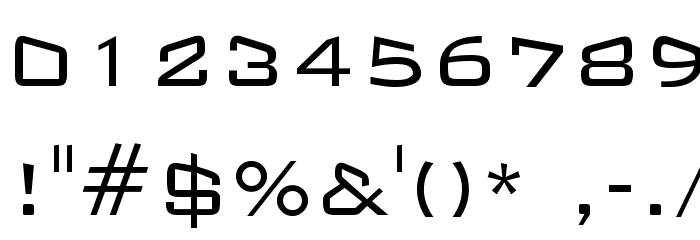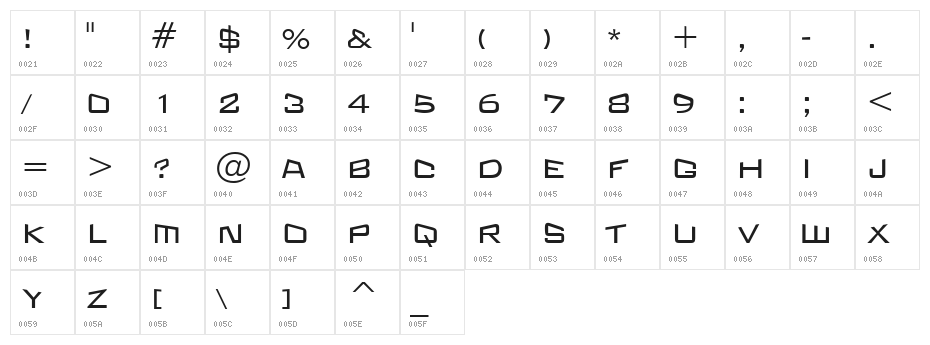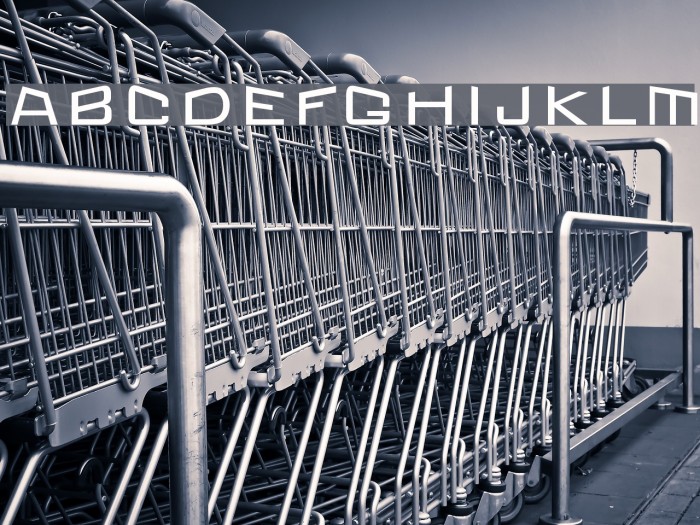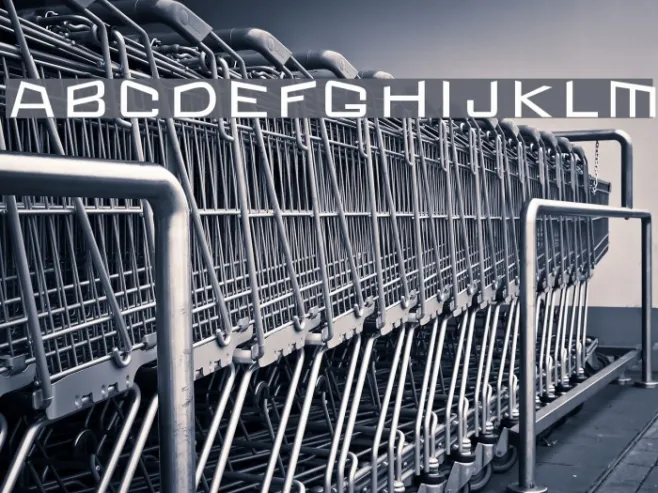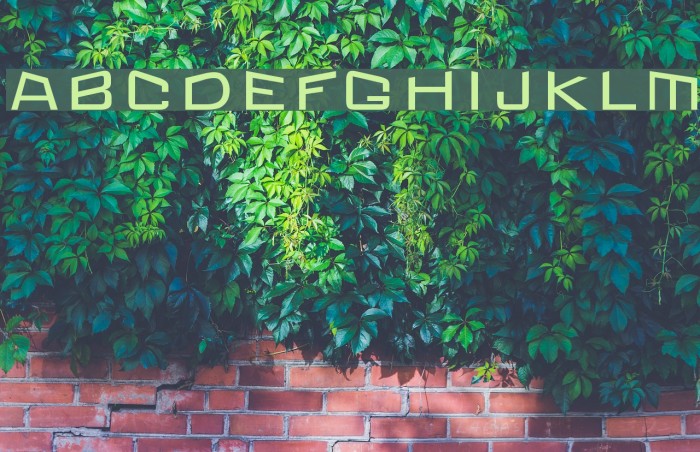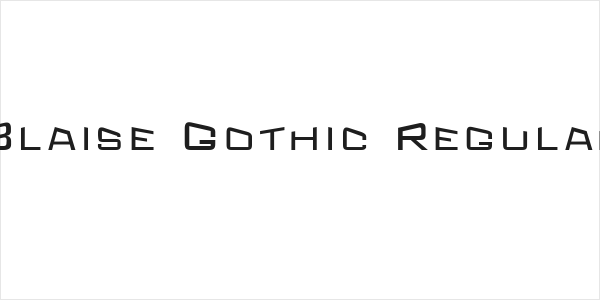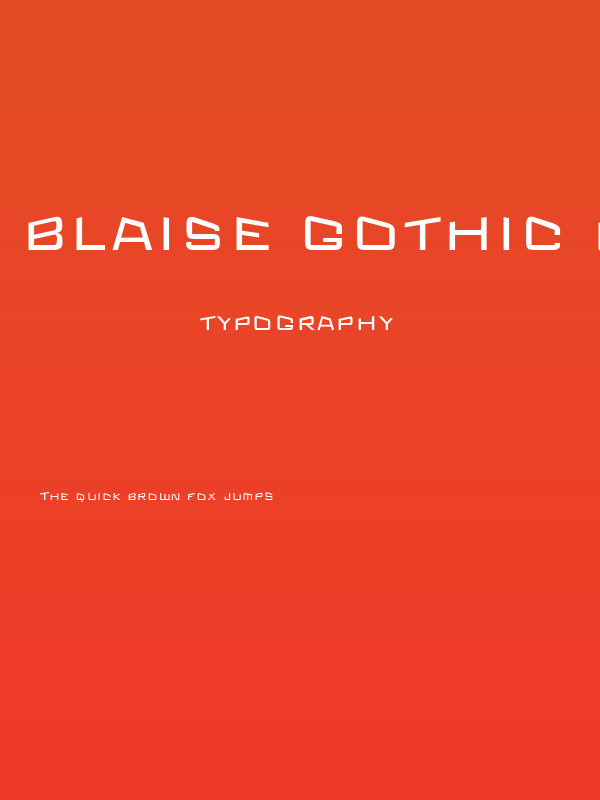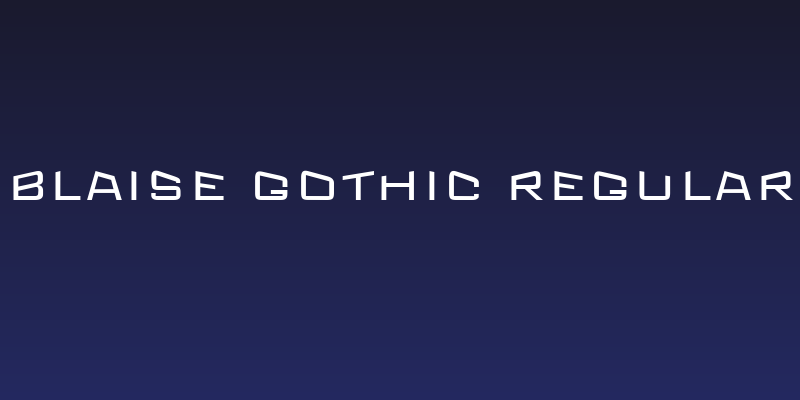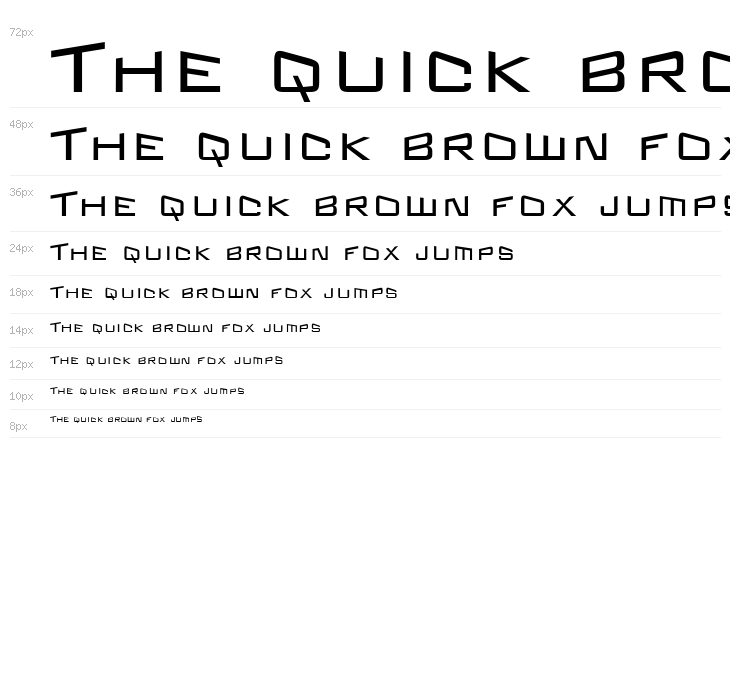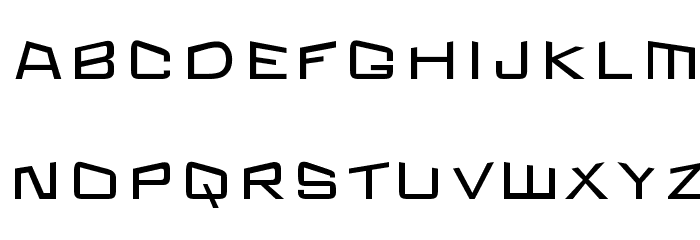
Blaise Gothic Regular Font
Blaise Gothic Regular Description
This font features a unique and modern design with a geometric and angular style. The characters are constructed with straight lines and sharp angles, giving it a futuristic and tech-inspired appearance. The uppercase and lowercase letters maintain a consistent structure, while the numerals and special characters complement the overall aesthetic. The font's distinctiveness lies in its bold and striking presence, making it suitable for eye-catching designs.
| Proposed Projects | Ideal for technology branding, sci-fi posters, video game titles, and modern digital interfaces. |